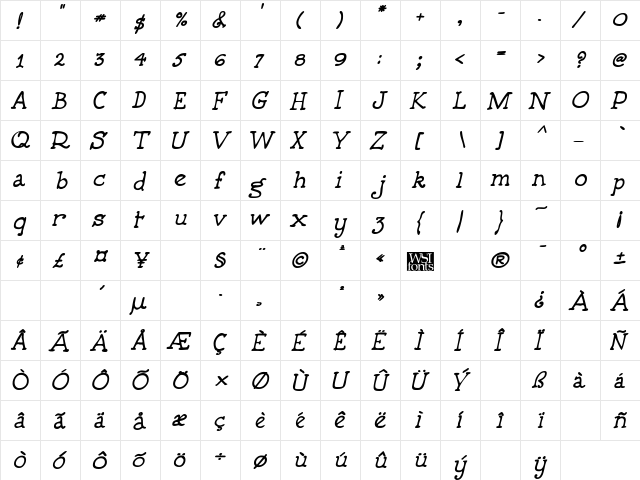
5thGrader Bold Italic
Design Context for 5thGrader Typeface
5thGrader is a composed and adaptable typeface that performs quietly and consistently across a wide range of design contexts. The slanted form adds forward momentum and visual energy. The heavy weight commands attention and anchors typographic hierarchies.
Pro Tip: Try 5thGrader for annotation and caption copy alongside an upright companion — the contrast in angle creates a dynamic but ordered typographic system.